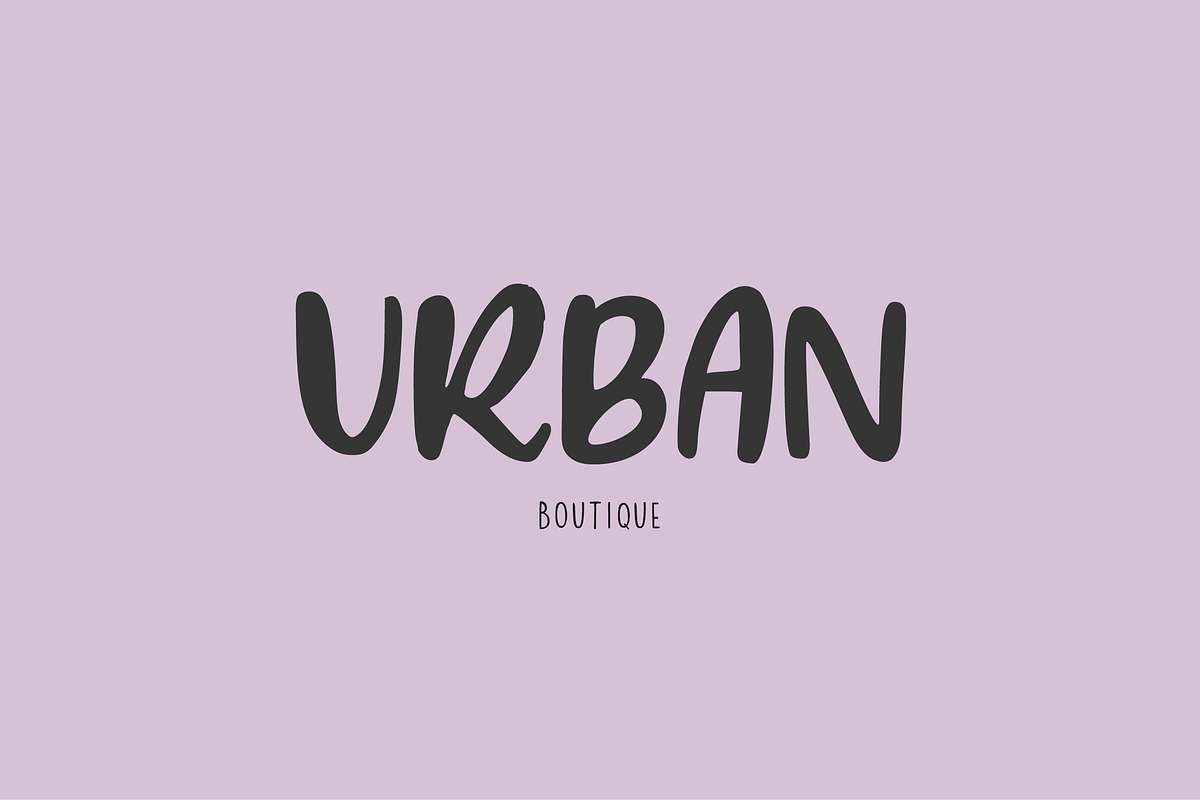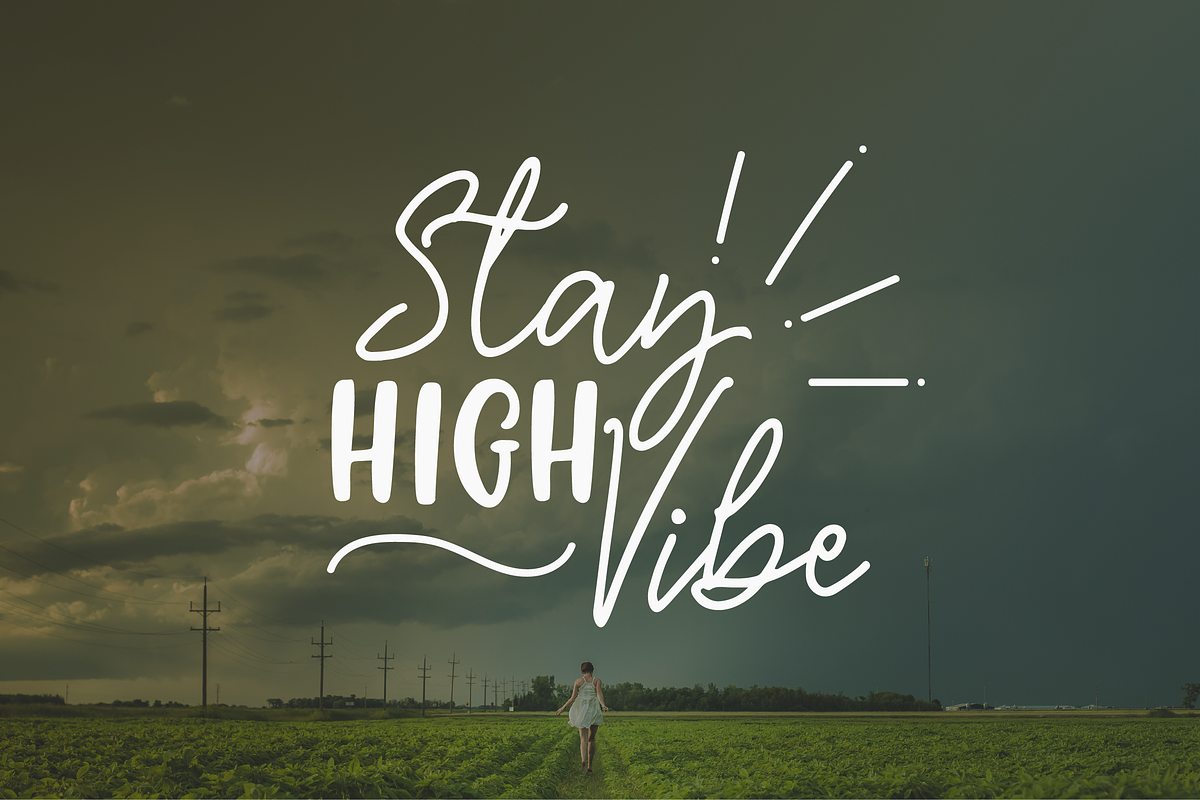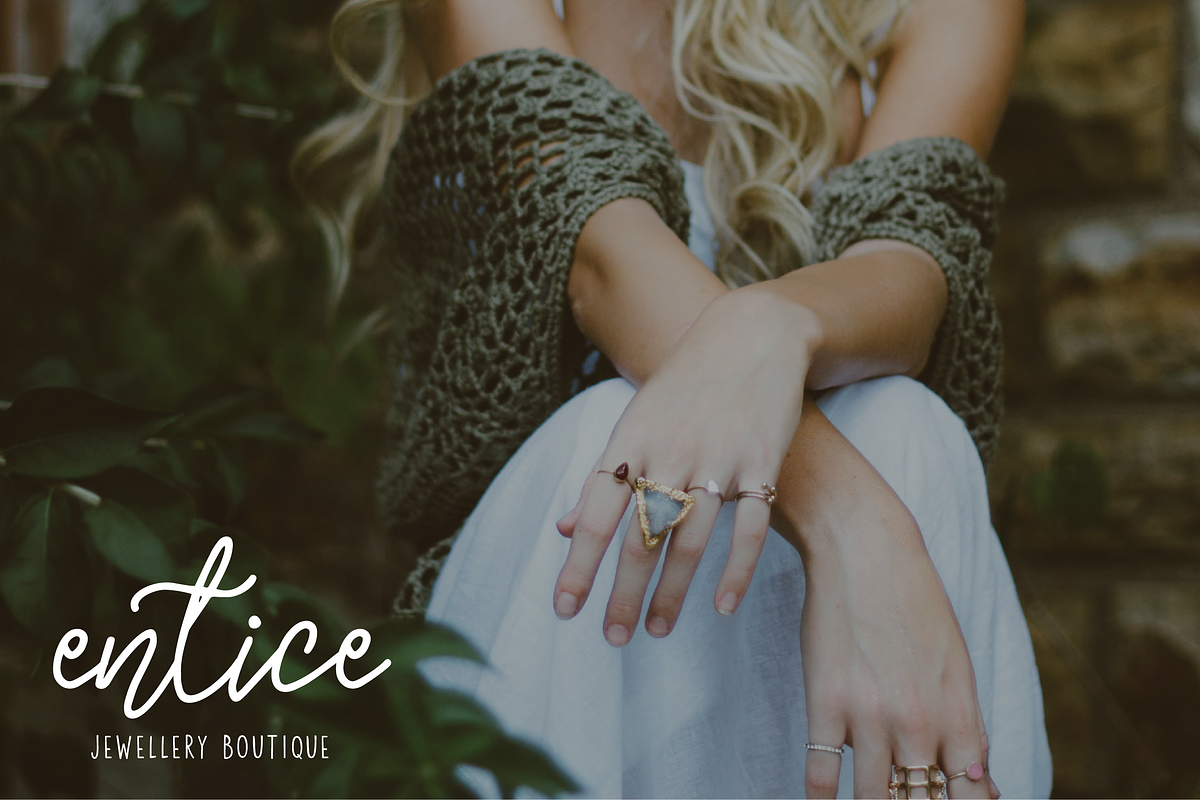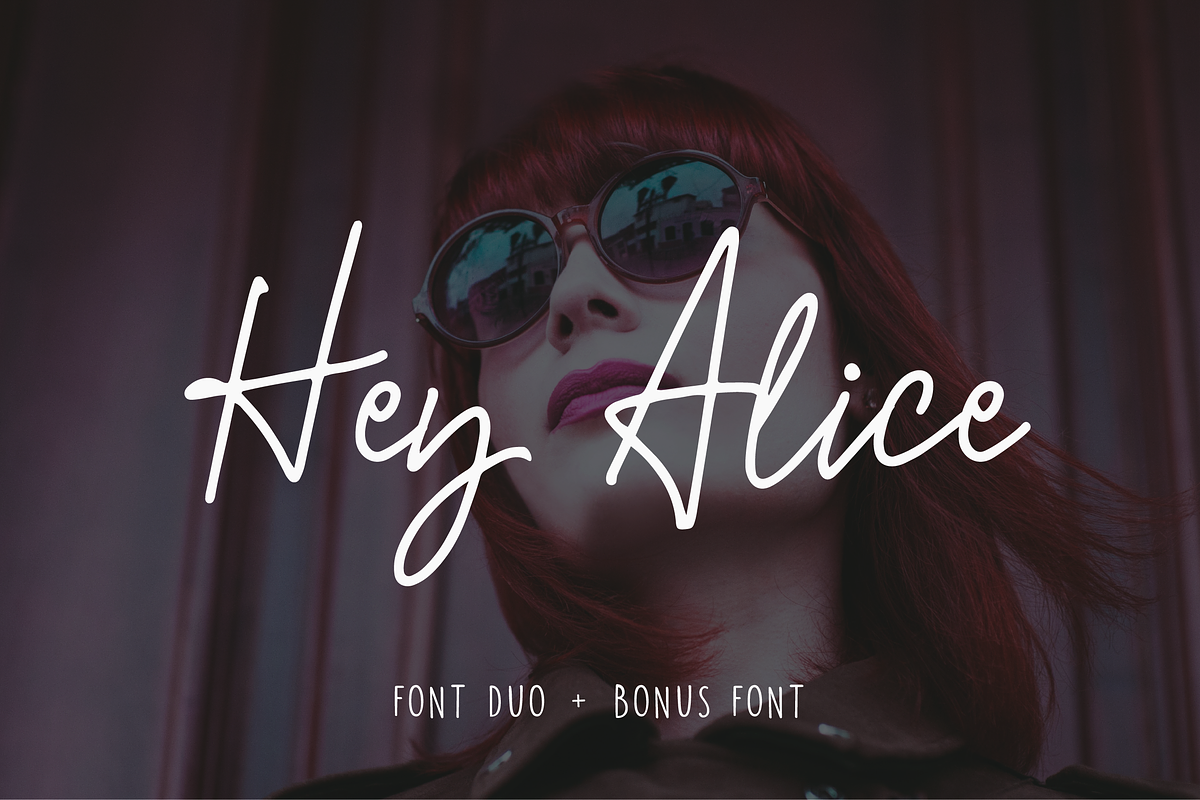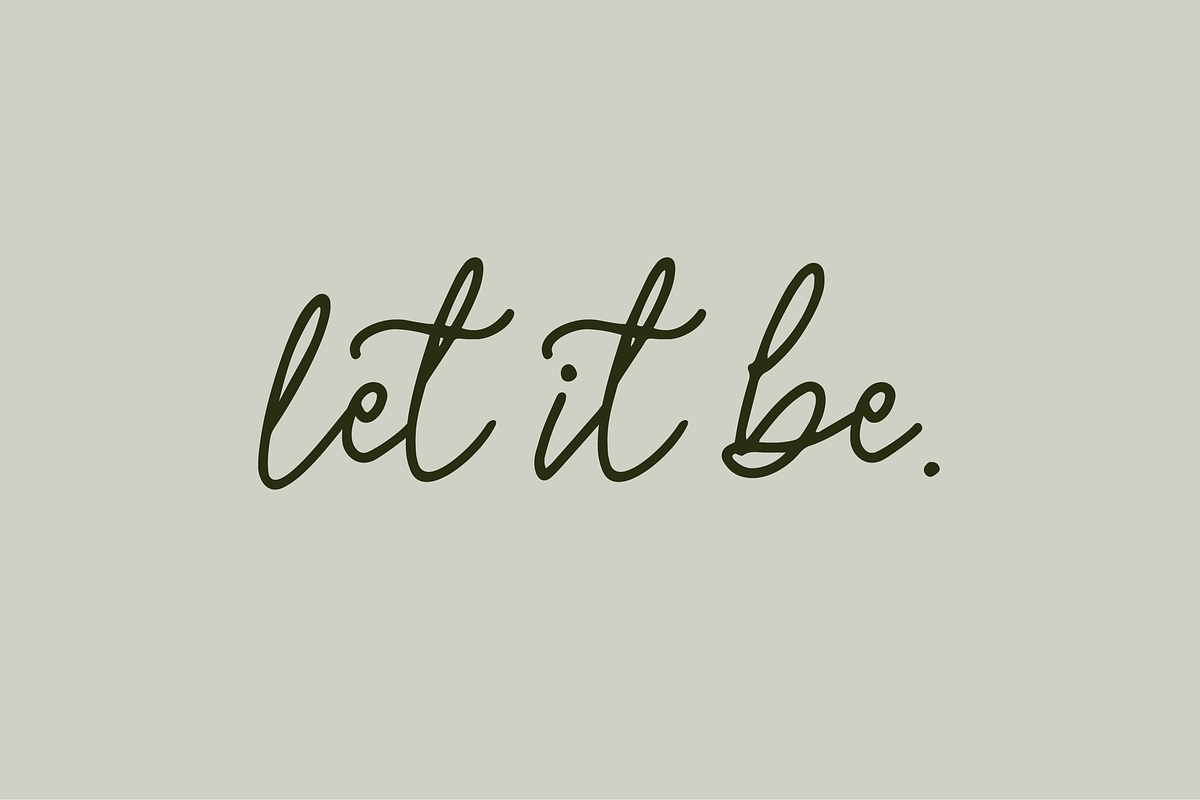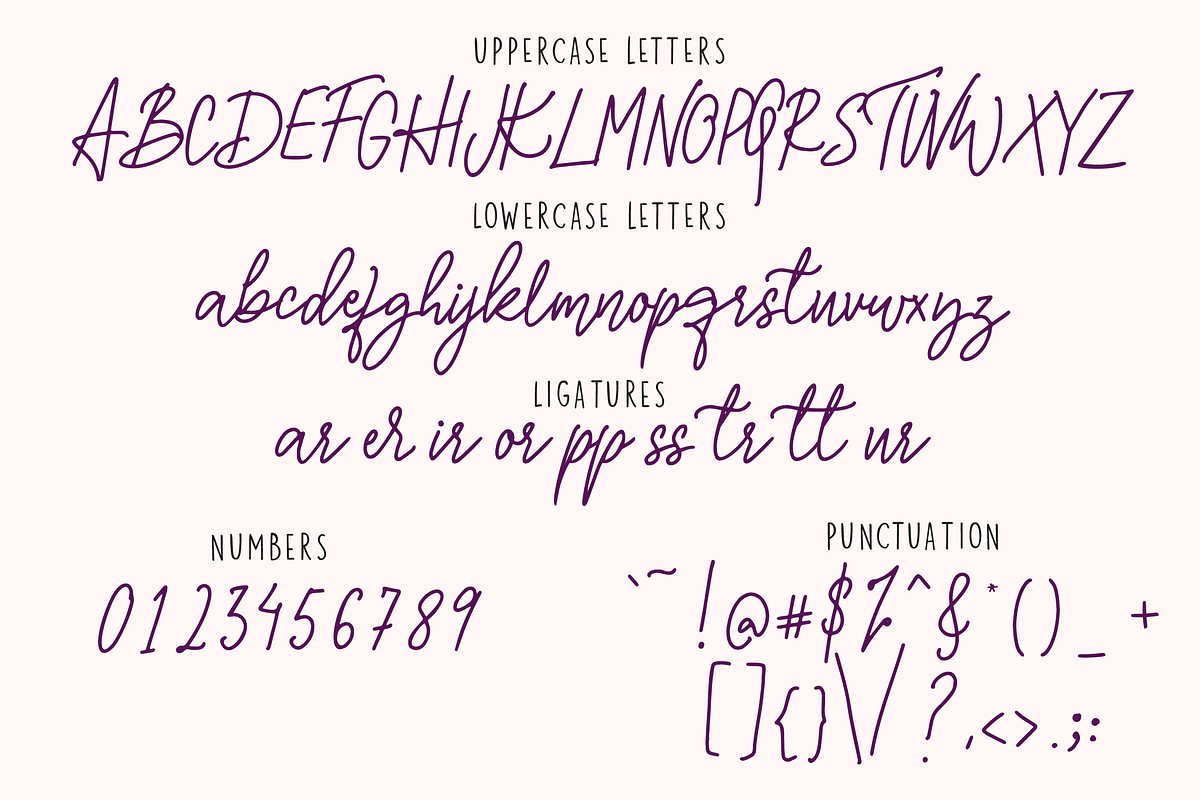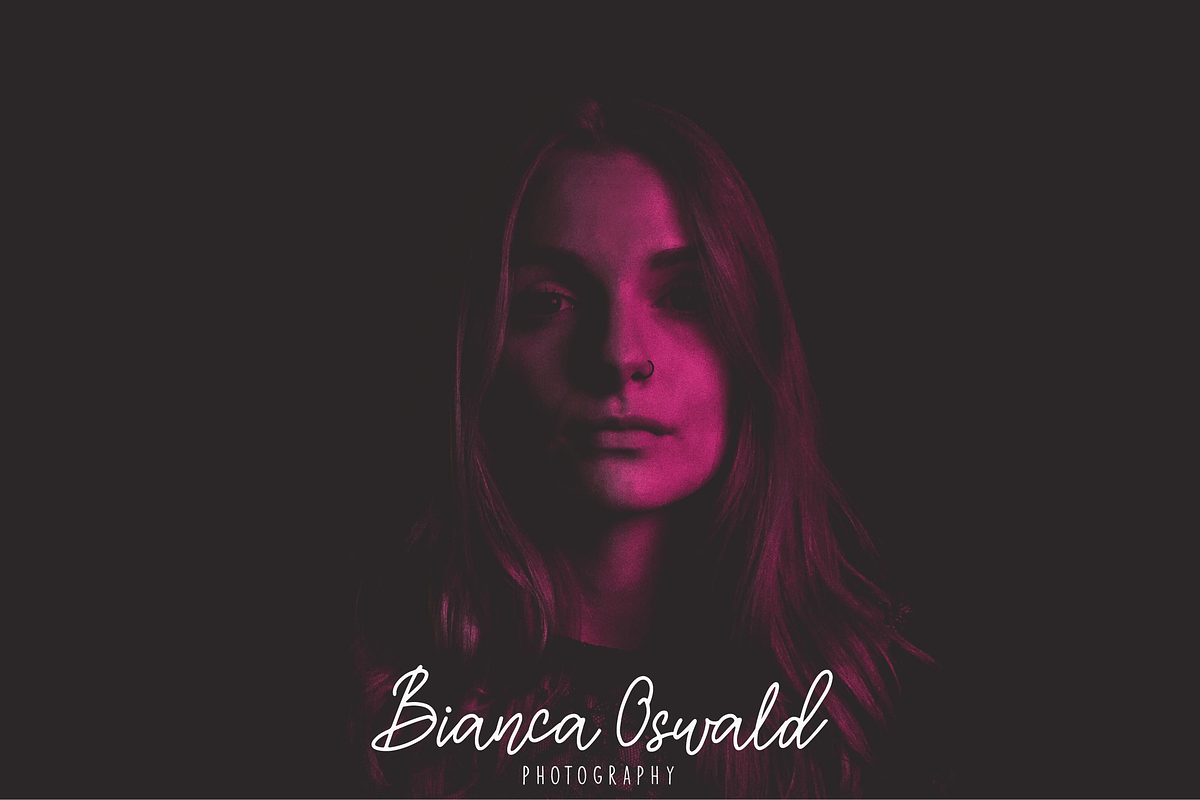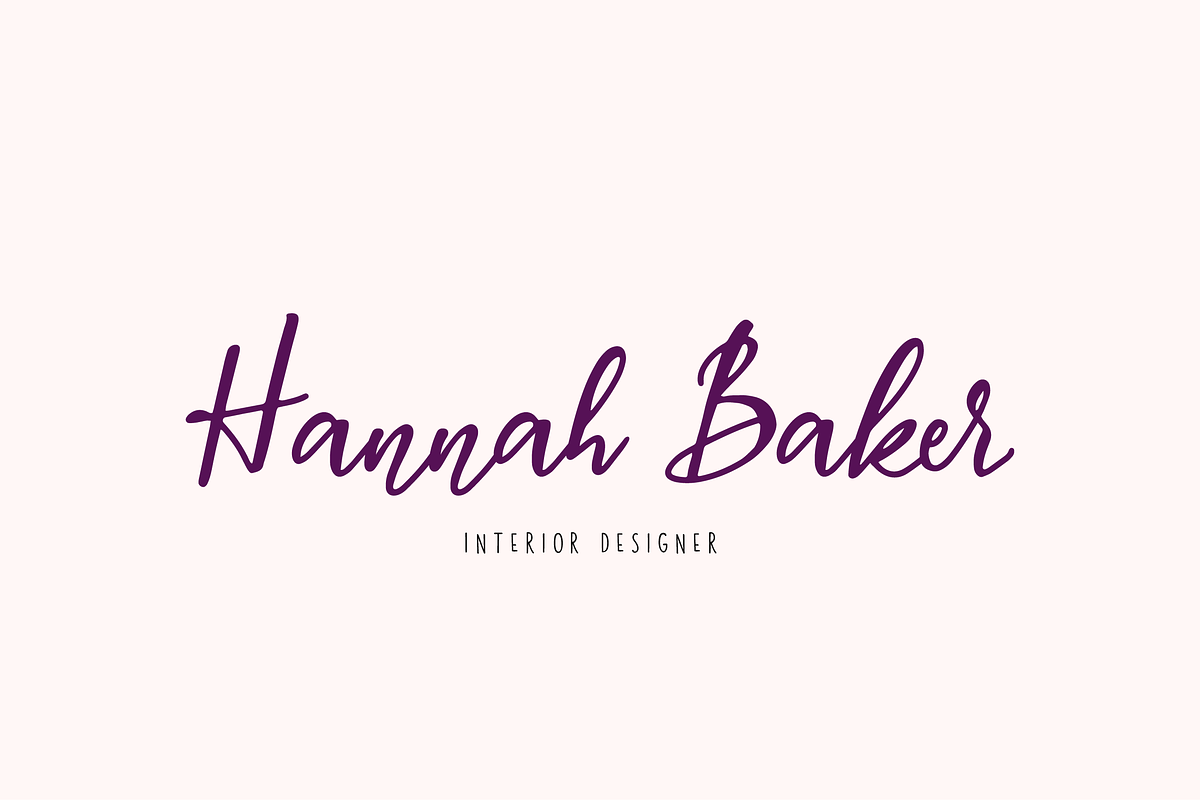
Hey Alice Font Duo
Meet Hey Alice a signature font duo that comes with a monoline signature font and a bold sans serif type. Also included is a bonus calligraphy font.
Ideal for all things design, this font is perfect for creating logos, designing branding projects, packaging as well as greetings, overlays, apparel design etc.
- Hey Alice Mono
- Hey Alice
- Hey Alice Sans